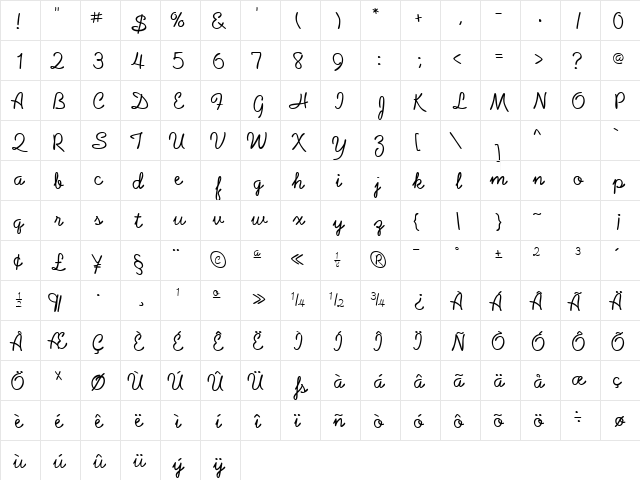
Baby Font Regular
Design Context for Baby Font Typeface
Baby Font is a composed and adaptable typeface that performs quietly and consistently across a wide range of design contexts.